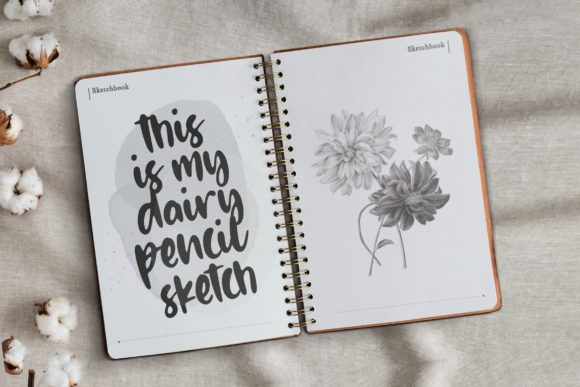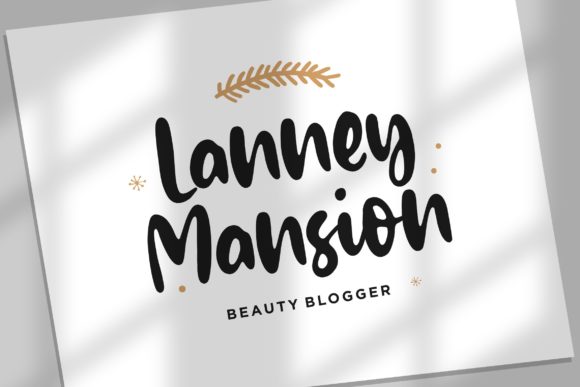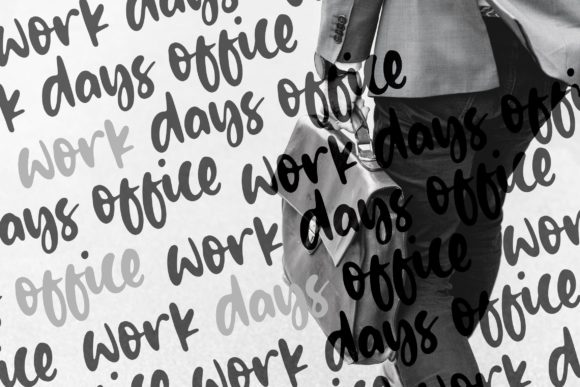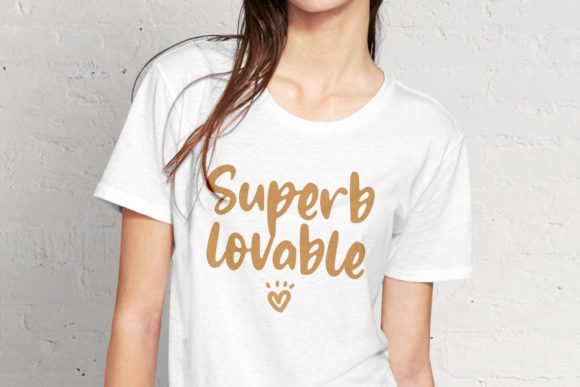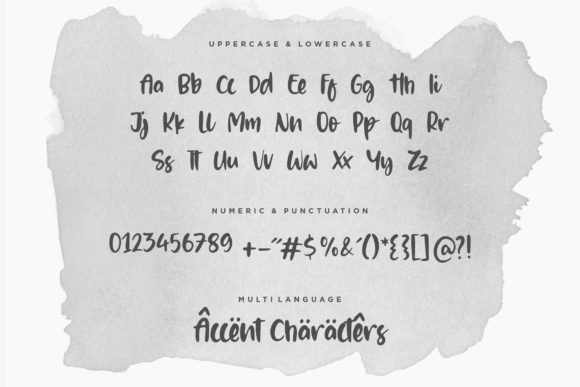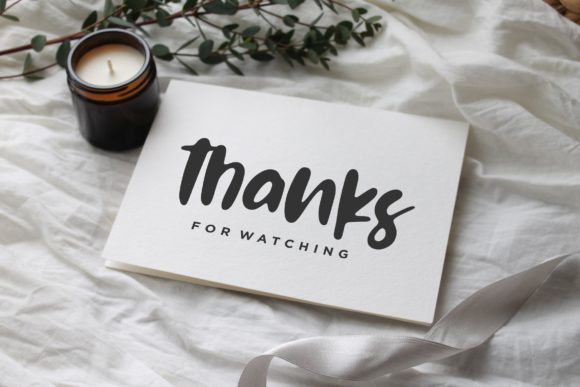
Introduction to Silver Midnight Font
Have you ever been working on a creative project and suddenly, the perfect font pops into your mind, making all the difference in the world? That’s exactly what happened to me when I stumbled upon the Silver Midnight Font. Its elegant and whimsical style instantly captured my attention, and I knew I had to share it with the design community.
As a designer, finding the right font can be a game-changer. It’s what elevates your branding, quotes, and logos from ordinary to extraordinary. The Silver Midnight Font is a treasure trove of unique and beautiful letters, waiting to bring your design to life. Whether you’re working on a high-quality logo or a creative project that requires a touch of sophistication, this font is sure to be a valuable addition to your design resource.
Key Features of Silver Midnight Font
- Unique, elegant design suitable for creative projects and high-end designs
- High-quality font with precise details, ideal for printing or digital use
Honest Review: Silver Midnight Font
I recently had the chance to work with the Silver Midnight Font for a creative project, and I must say it was a pleasant experience. The font’s sleek and modern design made it an excellent choice for my project’s theme.
Here are some aspects that work well for the Silver Midnight Font: ✨
- High-quality design: The font’s crisp and clean lines make it perfect for various design applications.
However, I did encounter some limitations: ⚠️
- Limited font variations: While the font’s design is excellent, I wish there were more variations to choose from.
- Not ideal for body text: Due to its modern design, the font may not be the best choice for large blocks of body text.
Overall, I was impressed with the Silver Midnight Font’s performance in my project. It’s a solid design resource that can elevate your creative work, especially when used in moderation. With its high-quality design and transparent background, it’s definitely worth considering for your next project.
The Silver Midnight Font is commonly used in branding, logos, and typography projects. Its high-quality design and transparent background make it an ideal choice for creating professional-looking designs.